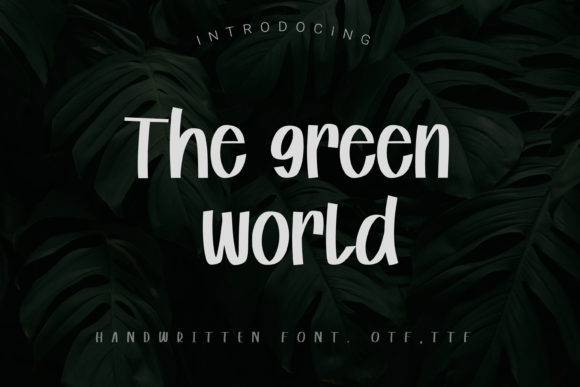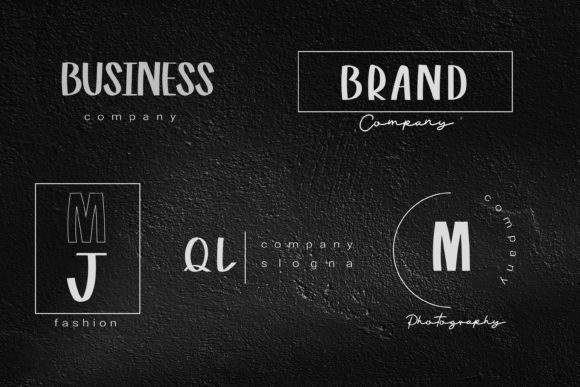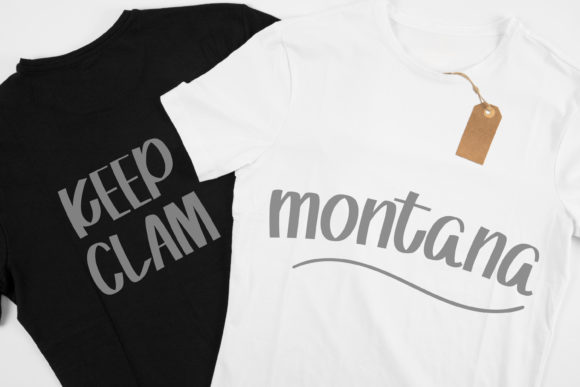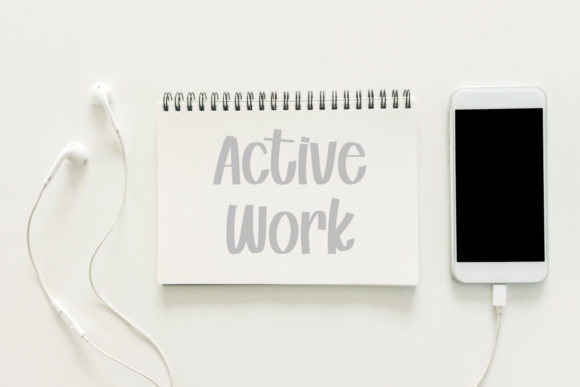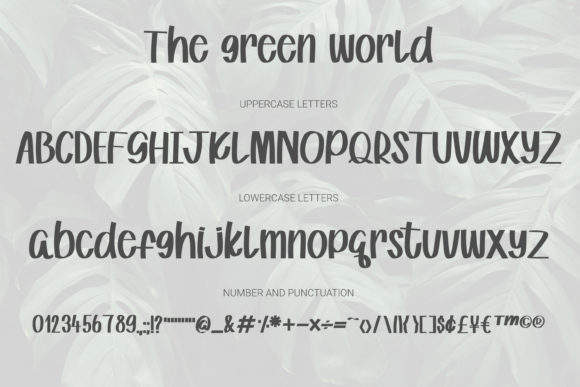
The Green World Font
About The Green World Font
The Green World is a beautiful and unique handwritten font, created with the help of a brush pen. Its quirky and incredibly versatile style makes this font fit for a wide variety of designs.